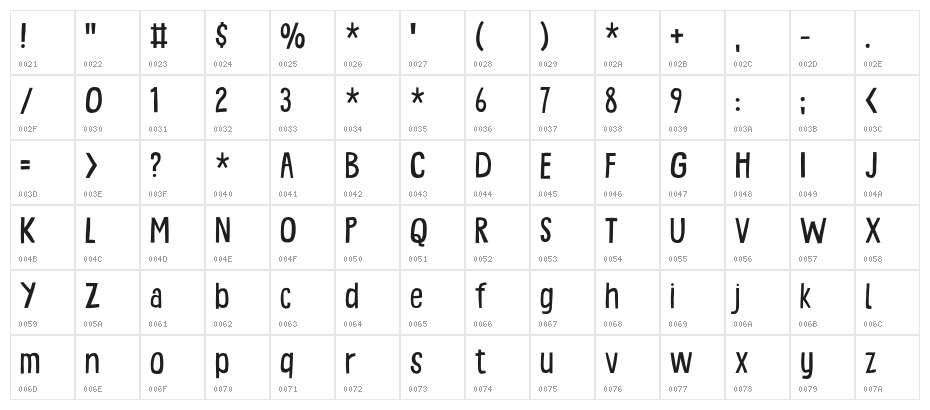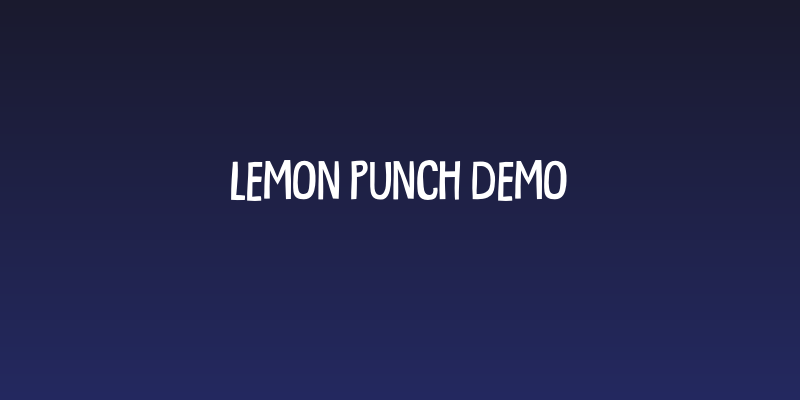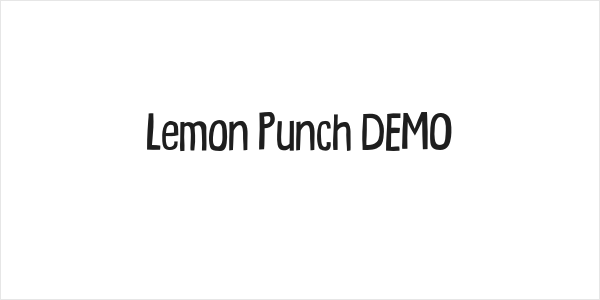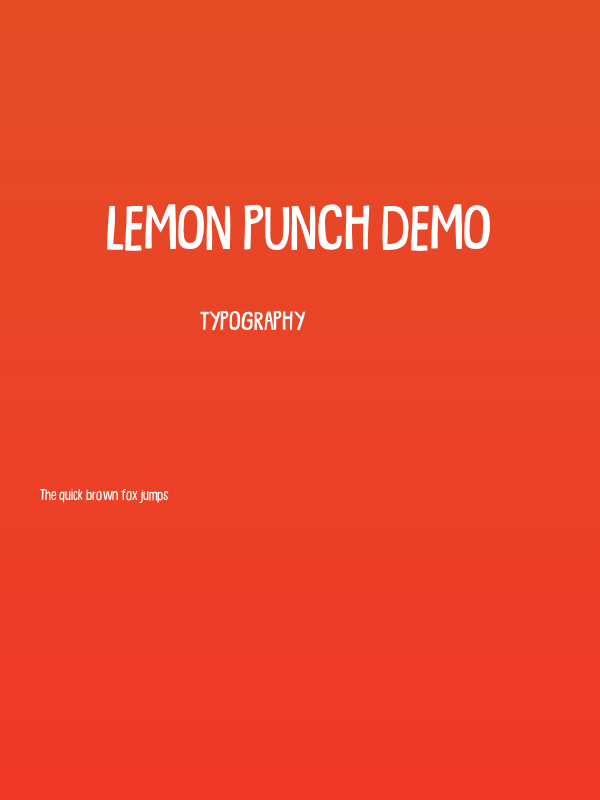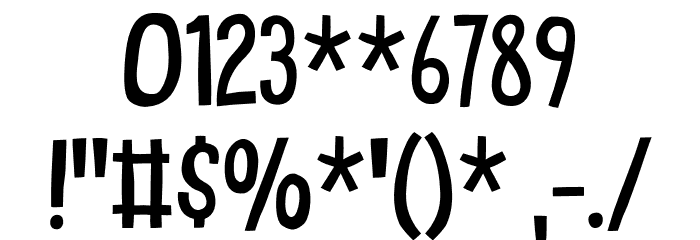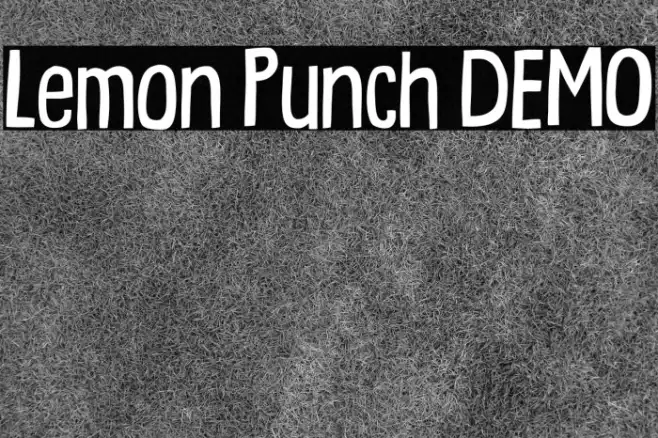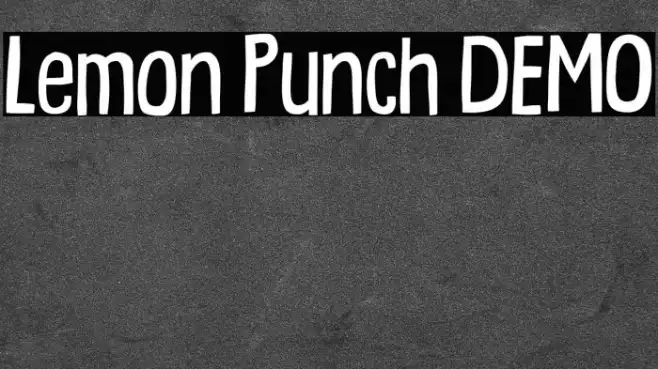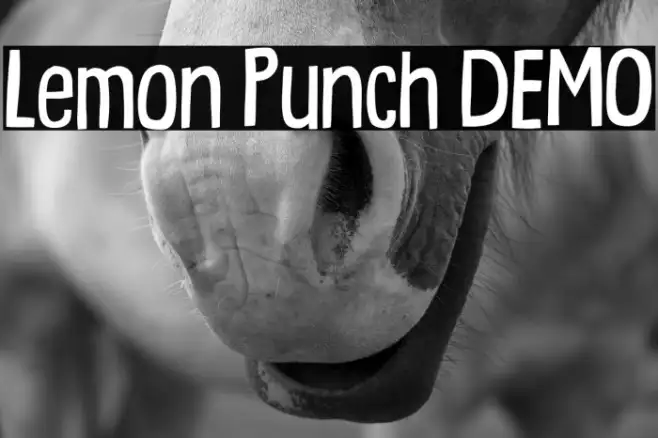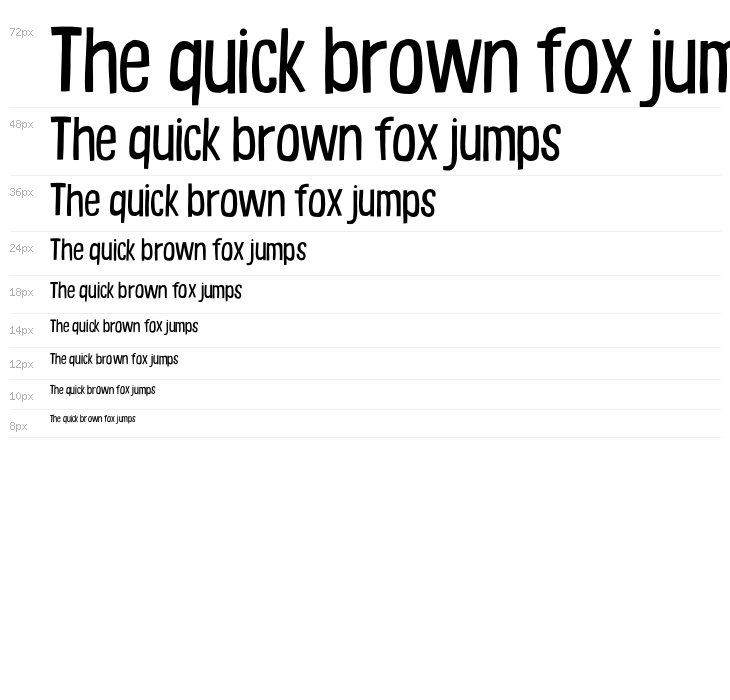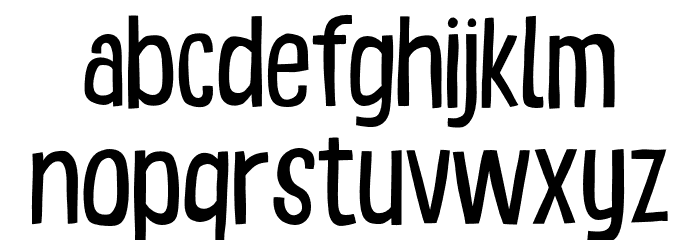
Lemon Punch DEMO Font
Lemon Punch DEMO Description
This font features a playful and informal style, characterized by its hand-drawn appearance. The letters are slightly irregular, giving it a whimsical and friendly feel. The uppercase and lowercase letters maintain a consistent height, while the strokes are bold and slightly uneven, adding to its casual charm. The numbers and special characters follow the same playful design, making it suitable for creative and informal projects. Its unique style makes it stand out, perfect for adding a touch of personality to any design.
| Proposed Projects | Ideal for children's books, greeting cards, playful branding, and creative posters. |